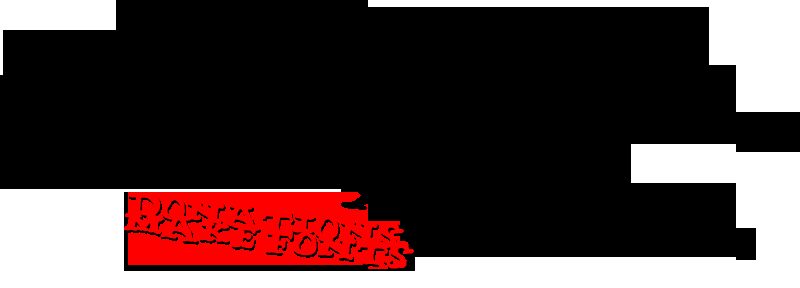
Nighthour Solid by Max Infeld of xerographer.com is a free decorative display font with broad, dark letters and exaggerated, uneven serifs. Its lumpy contours, pinched joins, and shifting widths give the lettering the rough-cut look of old wood type rather than a polished revival.
That unruly silhouette can suit horror film graphics and music posters, but it also has the handmade weight for barbecue packaging and tavern signage. It is strongest when a title needs to look printed, battered, and slightly strange.
nighthour and nighthour solid are available in two styles.